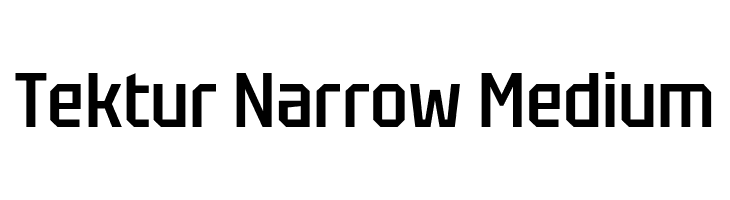
A geometric, angular font with narrow and bold letterforms, ideal for modern designs.
A geometric, angular font with a modern and technical aesthetic.
A bold, geometric font with a narrow and modern design.
A geometric, angular font with a modern, technical style.
A bold, geometric font with a modern, tech-inspired style.
A bold, geometric font with tight spacing and high contrast.
A bold, geometric font with strong, angular lines and tight spacing.
A bold, geometric font with a modern, industrial style and tight spacing.
A bold, geometric font with a modern, futuristic style and tight spacing.
A bold, geometric font with sharp angles and a modern aesthetic.